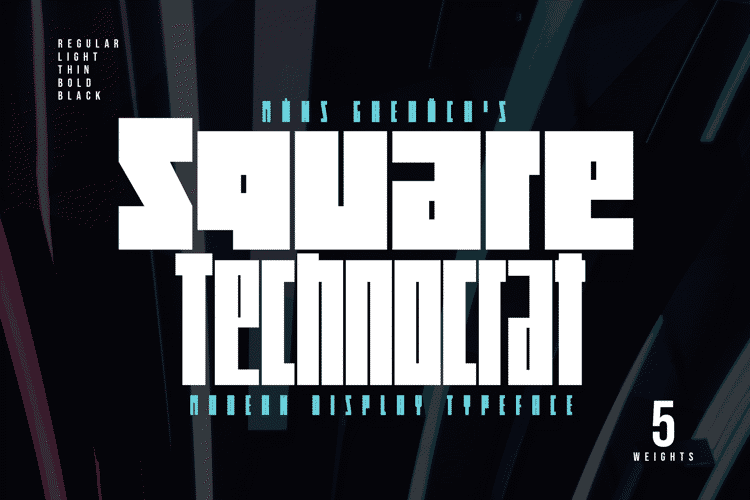
Square Technocrat Font
About Square Technocrat Font
Square Technocrat is a sharp, geometric font that embodies the essence of structure and modernity.
Drawing inspiration from cube-like forms and contemporary architecture, this font family is perfect for designs that require a strong, stable presence.